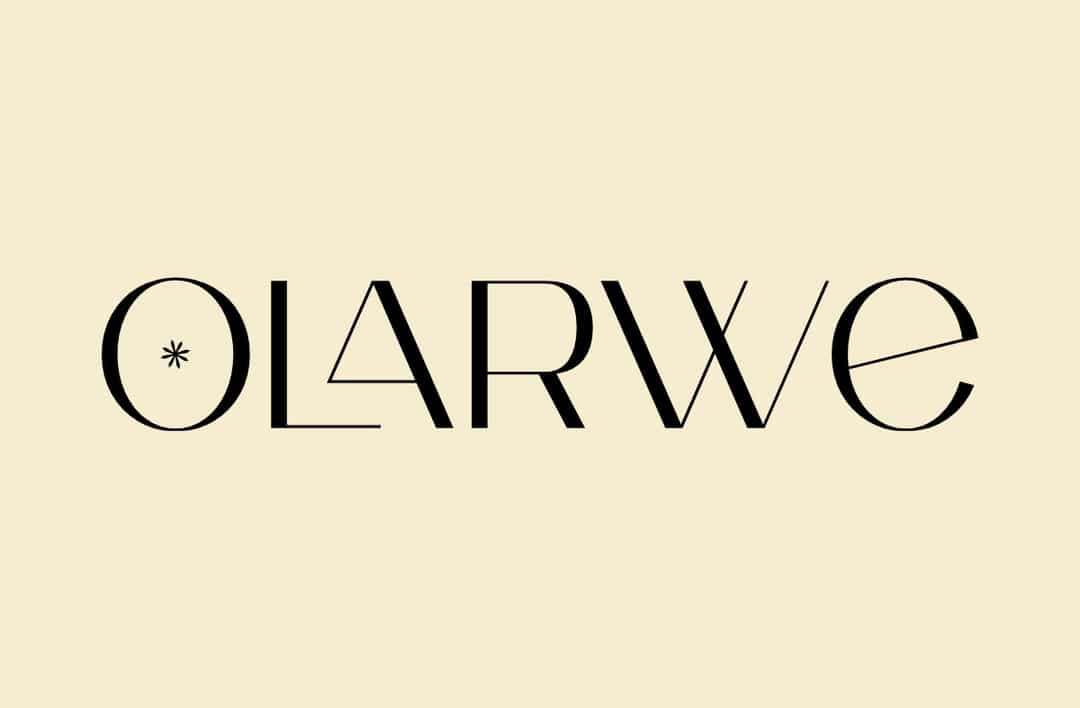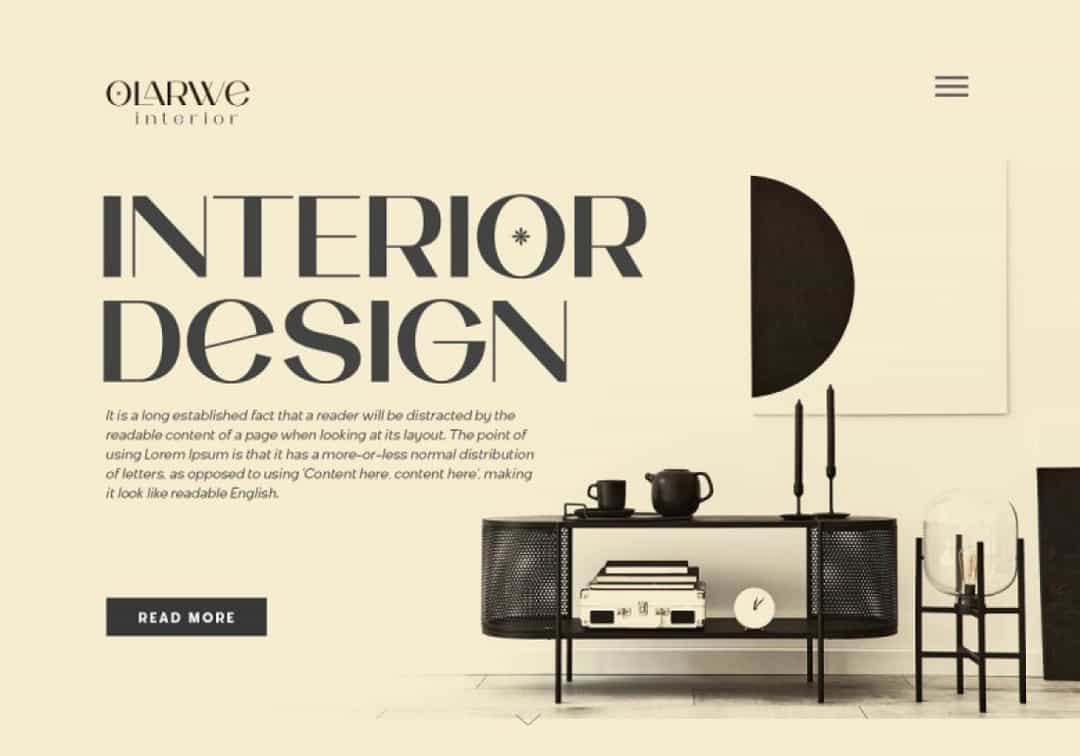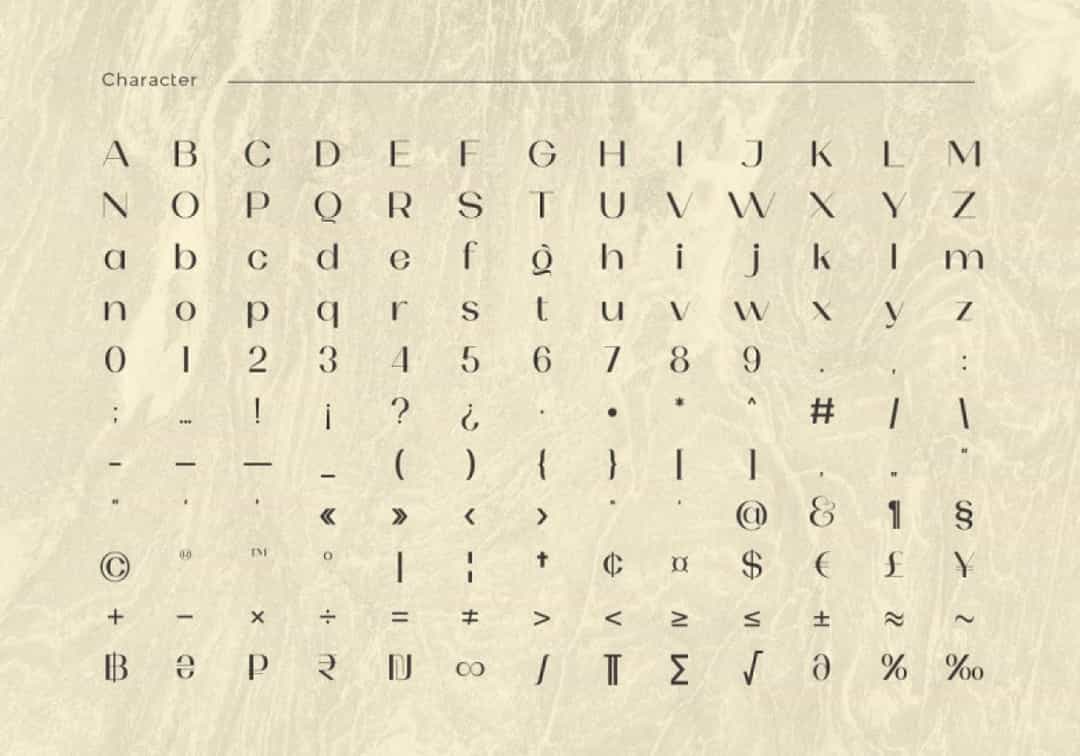
Olarwe Font is a contemporary and sophisticated font suitable for an sans-serif slogan, coming with nine levels of thickness ranging from black to light based on your needs. Compatible with San serif and modern script styles as shown above or used as header that represents your brand, Olarwe offers sophisticated style for any business and can create attractive brand identities on items like namesakes, badges and uniforms – elevating brands.